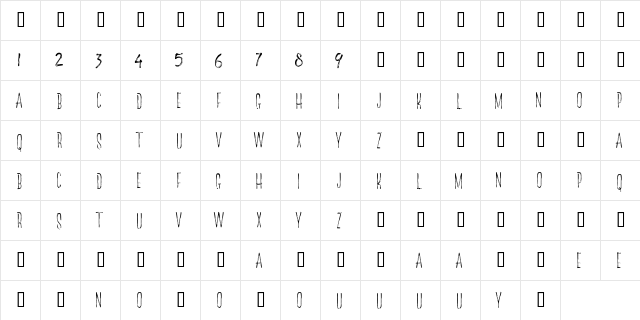
The Redlight Line Free Regular
| Foundry | Olexstudio |
| Designer | Olexstudio |
Design Context for The Redlight Line Free Typeface
The Redlight Line Free is a composed and adaptable typeface that performs quietly and consistently across a wide range of design contexts. Its slender proportions lend an understated elegance to any composition.